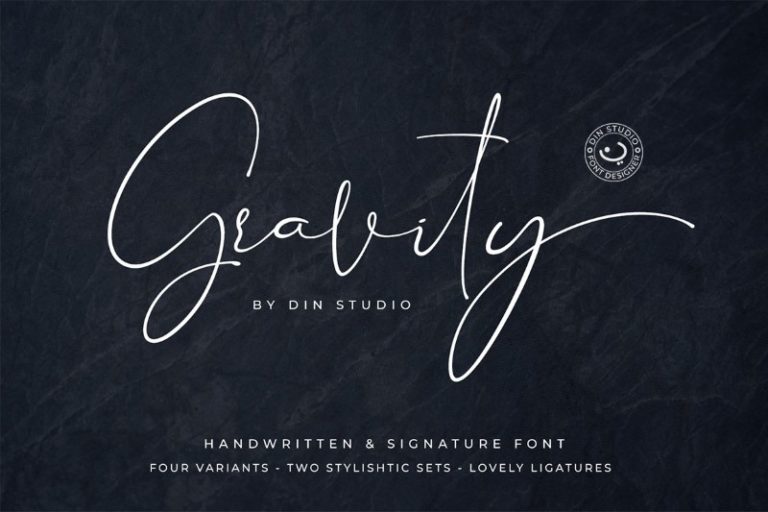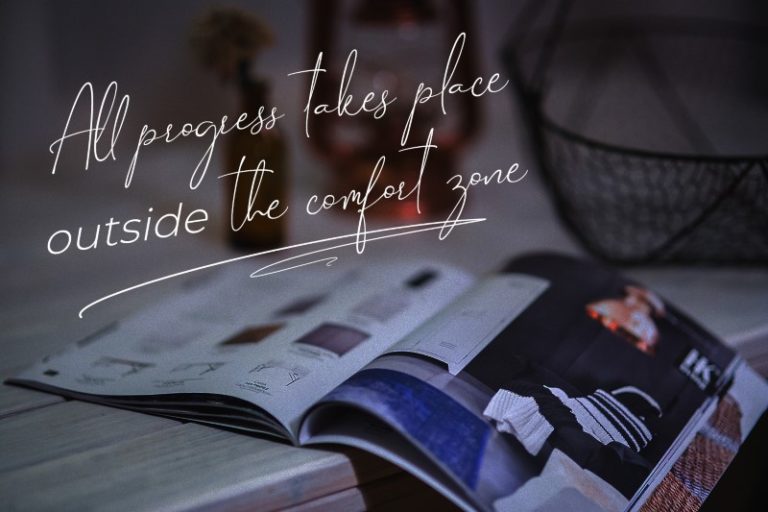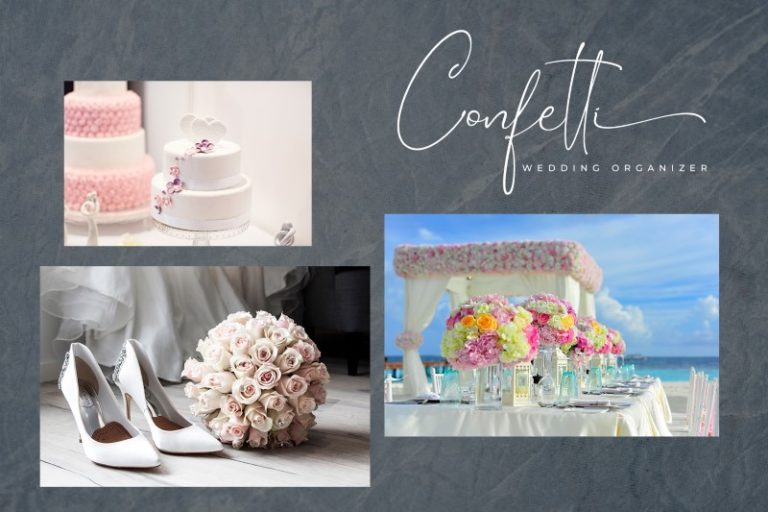
Gravity – Handwritten Signature Font
Let’s welcome the Gravity Font, a luxury handwritten and signature style. This signature font is one of the best-selling products of Din Studio. With four variants of styles, you can create more signatures and handwriting fonts than you need. Gravity will be great for creating the perfect and unique designs for your branding projects, signatures, quotes, weddings, etc.
- Gravity 1 (inc. Swashes, Handwritten Stylish Set and Ligatures)
- Gravity 2 (inc. Handwritten Stylish Set, Slant Version and Ligatures)
- Gravity 3 (inc. Signature Stylish Set and Ligatures)
- Gravity 4 (inc. Signature Stylish Set, Slant Version and Ligatures)
- Uppercase and Lowercase letters
- International Character Supports
Note: The swash can be used for another variant, but it must be accessed from Gravity Font 1.